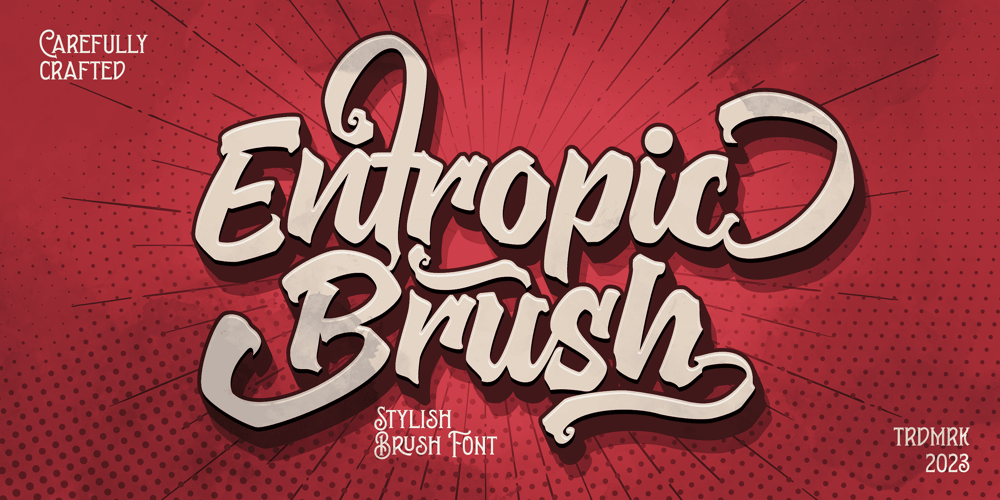
Entropic Brush Font Family was designed by Måns Grebäck and published by Mans Greback. Entropic Brush contains 4 styles and family package options. Entropic Brush is a striking fat brush font that boasts a wild and rustic charm. Its decorative display style makes it perfect for logotypes, headlines, and other eye-catching design elements. The font’s heavy, oak-like strokes and thick brush texture give it a bold and distinctive character.Ideal for projects that require a strong, natural presence, Entropic Brush is a versatile font that adds a sense of raw energy and untamed beauty to your designs. Its unique aesthetic makes it a great choice for branding materials that need to convey a sense of rugged, organic elegance.With hundreds of swashy and decorative alternates, Entropic brush is sure to give you a customized appearance – like a truly hand-drawn paintbrush design. Use characters _ ¤ # after any word to make a swash. Example: Spline_ Sonic¤ Brush#Use multiple _ ¤ # to make swashes of different lengths. Example: Superhuman______(Download required.)The Entropic Brush font family includes four high-quality styles to suit various design needs:Regular: A bold statement with a natural, rustic appearanceBold: An even heavier presence for more impactful designsItalic: Adds an expressive, dynamic touch to your textBold Italic: Combines the assertiveness of bold with the energy of italicBuilt with advanced OpenType functionality, Entropic Brush ensures top-notch quality and provides you with full control and customizability. It includes stylistic alternates, ligatures, and other features to make your designs truly unique.The font is built with advanced OpenType functionality and has a guaranteed top-notch quality, containing stylistic and contextual alternates, ligatures and more features; all to give you full control and customizability.It has extensive lingual support, covering all Latin-based languages, from Northern Europe to South Africa, from America to South-East Asia.It contains all characters and symbols you’ll ever need, including all punctuation and numbers.